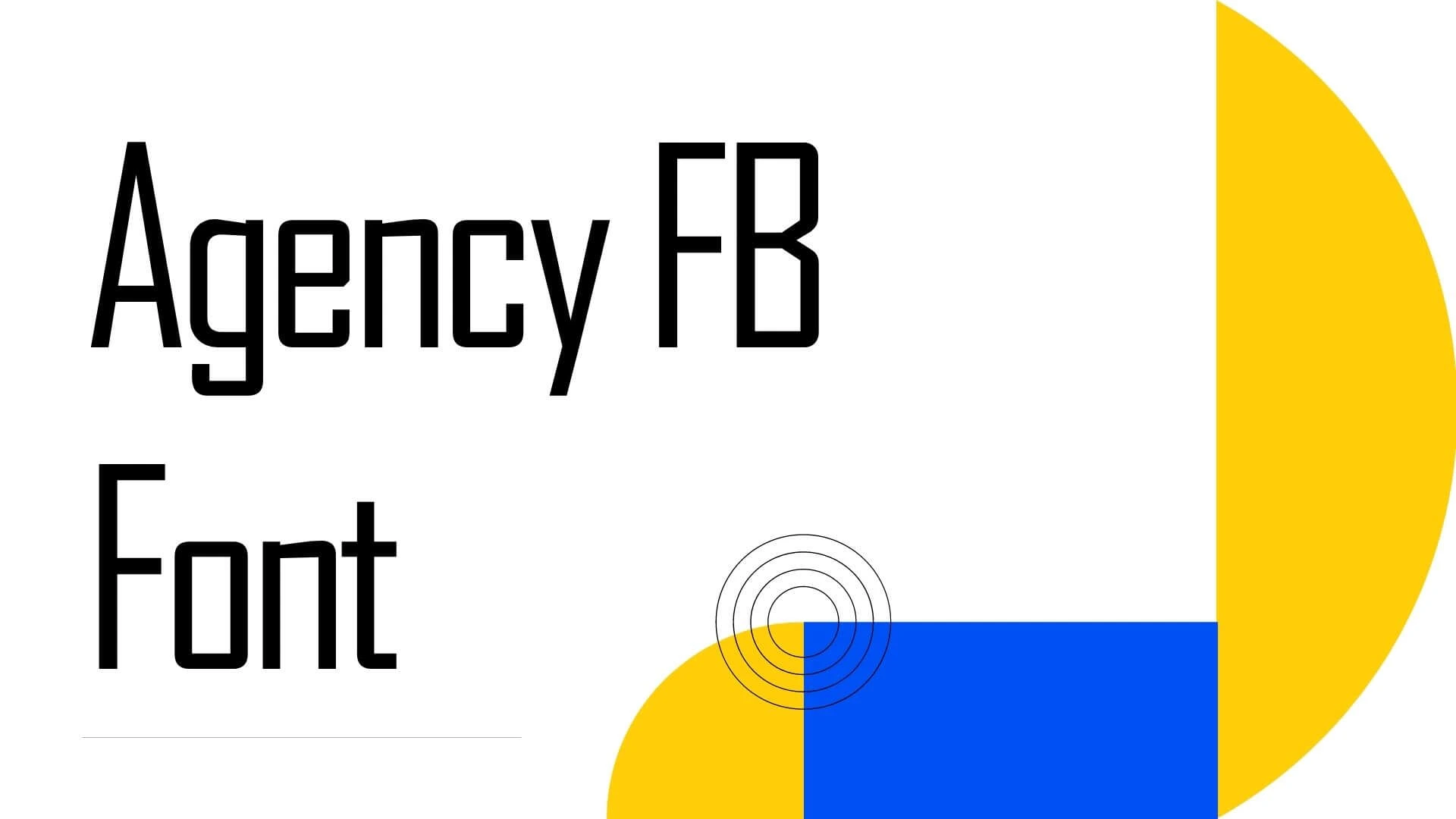
Agency FB is a geometric sans serif font. It was designed by David Berlow and between 1990 and 1995, released bu a typeface foundry Font Bureau. This redesigned version is quite similar to Bank Gothic Font.
This font family contains 5 weights with 5 width including thin, light, regular, bold and black. It is known for its strong visual impact.
Agency FB Font
Designer David Berlow, Morris Fuller Benton